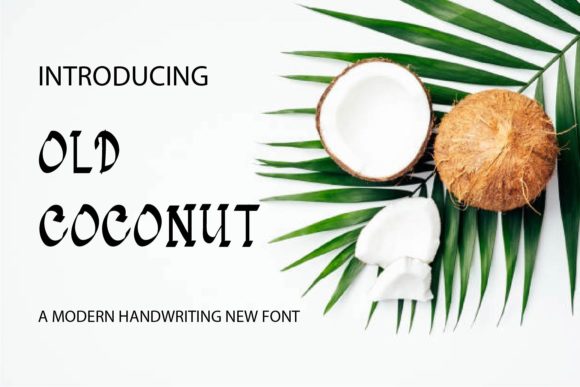
Behold, the Old Coconut Font – a delightful and charming display font that will dance its way into your heart and projects, leaving an enchanting trail of creativity and joy! This captivating font was lovingly crafted by rangkaiaksara, a visionary font designer who poured their heart and soul into creating a typeface that exudes a sense of warmth, playfulness, and boundless imagination.
Prepare to be mesmerized as you explore the limitless possibilities of the Old Coconut Font. It's the perfect companion for crafting captivating movie posters that transport audiences to extraordinary worlds, filled with wonder, adventure, and heartwarming stories. Unleash your inner artist and let your designs blossom with this enchanting font, turning ordinary words into extraordinary visual masterpieces.
Step into a world where imagination reigns supreme. With the Old Coconut Font, you'll find yourself effortlessly creating eye-catching social media posts, logos, and branding materials that radiate personality and charm. Its playful and inviting nature will draw your audience in, leaving them captivated by your creative brilliance.